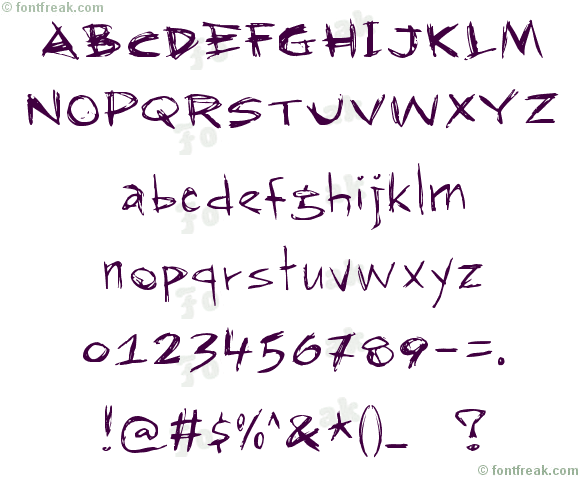
RapJack
About RapJack
RapJack, designed by Jacob Fisher in 2003, is a unique display font that captures attention with its playful and unconventional style. This font is characterized by its hand-drawn appearance, which gives it a casual, organic feel. The strokes exhibit a varying weight, adding a dynamic quality that enhances its visual appeal. The letters are spaced generously, allowing for easy readability while maintaining an artistic flair. This font's distinctiveness is further emphasized by its quirky decorative elements, which lend a sense of personality and creativity to any design.
The RapJack font is ideal for a variety of creative applications. Its whimsical nature makes it perfect for event flyers, especially for music festivals or art exhibitions that seek to attract a youthful audience. Additionally, it can be effectively used in merchandise designs, such as t-shirts and hats, appealing to streetwear brands looking to make a bold statement. Its playful vibe also works well for children's book covers, where an engaging and fun typeface can enhance the overall aesthetic. Furthermore, the font is suitable for social media graphics, helping content creators convey a lively and energetic message to their followers.
Author Jacob Fisher